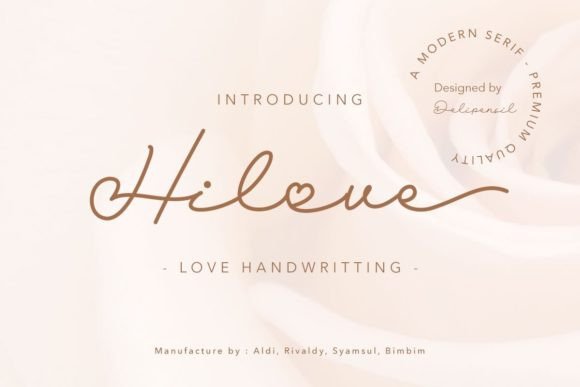
Welcome to the world of Hilove Font, a love-inspired script font family that captures the essence of romance and affection through its flowing, elegant curves. With its delicate strokes and enchanting charm, Hilove Font brings a touch of warmth and heartfelt emotion to your messages and designs. Created by the talented delipensil, this font family is a testament to the beauty and power of love.
Hilove Font's graceful personality makes it perfect for expressing your deepest feelings. Its organic, handwritten style adds a personal touch to invitations, greeting cards, and love letters, making your words feel like whispered sweet nothings. It's an ideal choice for those seeking a font that reflects the depth of their emotions, whether it's joy, gratitude, or unconditional love.
More than just a font, Hilove is a creative expression of love, friendship, and human connection. Its versatility allows it to transcend traditional boundaries and find a home in a wide range of designs, be it website headers, social media posts, posters, or branding materials. Its elegant presence adds a touch of sophistication to any project, leaving a lasting impression on your audience.
Unleash the power of love and creativity with Hilove Font. Let your words dance with romance and delight, touching the hearts of those who read them. Whether you're a designer, artist, or simply someone who appreciates the beauty of love, Hilove Font is your perfect companion, ready to bring your messages to life with grace and charm.
And if you're looking for more ways to express your affection, consider pairing Hilove Font with a warm, inviting color palette that complements its romantic overtones. Soft pinks, dreamy purples, and gentle greens create a harmonious backdrop for Hilove's delicate strokes to shine. Add in subtle illustrations or flourishes that evoke the feeling of love and connection, and you have a recipe for truly captivating designs.
With Hilove Font, you have the power to create designs that resonate with the heart. Your words and visuals will take on a new level of emotional depth, captivating your audience and leaving them with a sense of joy, warmth, and lasting affection. So, embrace the love-inspired spirit of Hilove Font and spread your message of affection to the world.